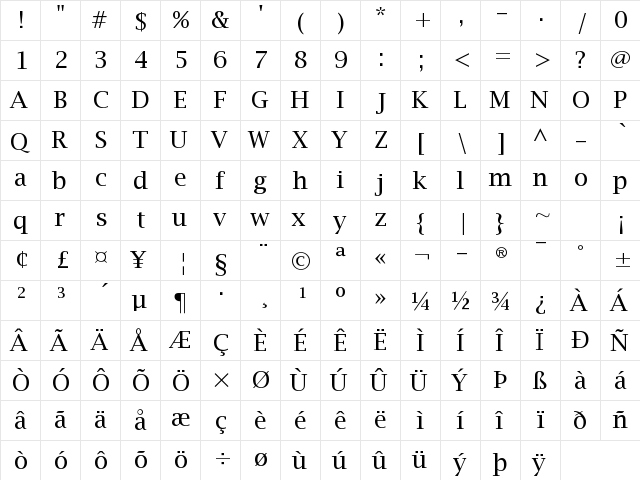
Lucida Bright Regular
Design Context for Lucida Bright Typeface
Lucida Bright offers clean, dependable letterforms without strong stylistic allegiance, making it a practical choice for designers who need flexibility.
Pro Tip: Use Lucida Bright in both headline and body roles to test its range before committing to a single application.